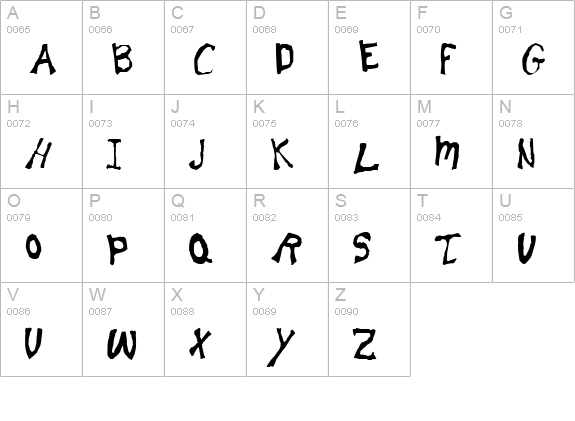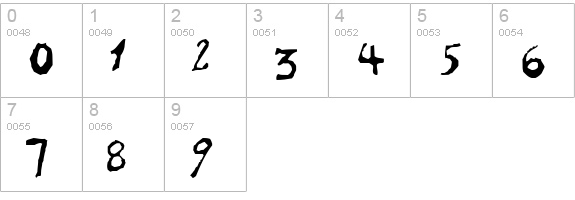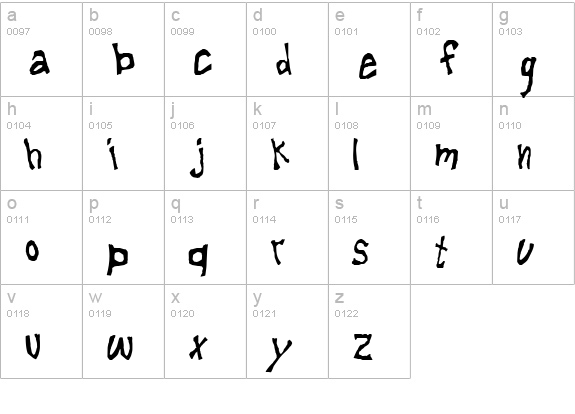
Lemonheads Font Details
Introducing Lemonheads, a refreshing and vibrant font that exudes a zest for life. This delightful typeface perfectly captures the essence of the juicy and tangy fruit it is named after. With its playful curves and energetic strokes, Lemonheads adds a burst of sunshine to any design project. Designed with attention to detail, Lemonheads is a versatile font that can be used for a variety of purposes. Whether you're creating eye-catching logos, vibrant posters, or playful branding materials, this font will effortlessly infuse your designs with a sense of energy and excitement. What sets Lemonheads apart is not only its captivating aesthetics but also its accessibility. This font is freely available to download at FontsMarket.com, making it accessible to designers of all levels. Embrace the freedom to create stunning visuals without the constraints of expensive fonts. With Lemonheads, you can let your creativity shine without breaking the bank. The versatility of Lemonheads extends beyond its incredible design. This font is also highly legible, ensuring that your message is clear and easily understood. Whether you're using it for headlines, body text, or captions, Lemonheads ensures that your words are delivered with impact and style. Lemonheads is a font that embraces the spirit of summer all year round. Its vibrant and cheerful aesthetic will instantly transport your audience to sunny days and carefree moments. It's the perfect choice for designs that need a touch of playfulness and a dash of sunshine. So why wait? Download Lemonheads for free at FontsMarket.com and unlock a world of possibilities. Let this font be the zest that elevates your designs to new heights. Whether you're a seasoned designer or just starting out, Lemonheads will be your trusty companion, adding a burst of freshness to every project. Embrace the freedom to create with Lemonheads and watch your designs come to life with a vibrant and irresistible energy.